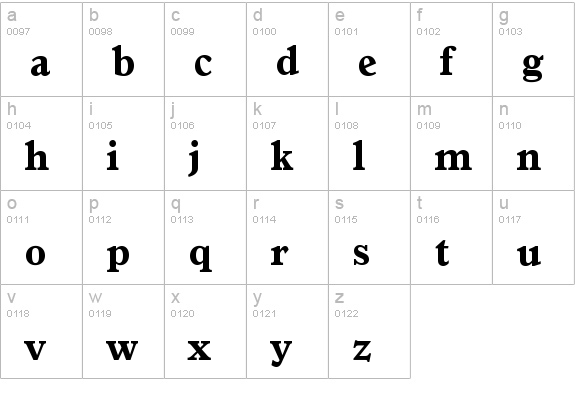
Granada-Bold is a strong, high-contrast variant in the Granada typeface family \xE2\x80\x94 well suited to headlines, attention-grabbing titles, and strong calls-to-action.
Granada-Bold is a modern and stylish font that exudes confidence and sophistication. With its bold strokes and clean lines, this font is perfect for making a statement and standing out from the crowd. Whether you are designing a logo, poster, or website, Granada-Bold will add a touch of elegance to your project. The best part is that Granada-Bold is available for free download at FontsMarket.com. This means you can easily access this stunning font and use it in your creative endeavors without any cost. Don't miss out on the opportunity to elevate your designs with the timeless appeal of Granada-Bold. Download it now and see the difference it can make in your work.